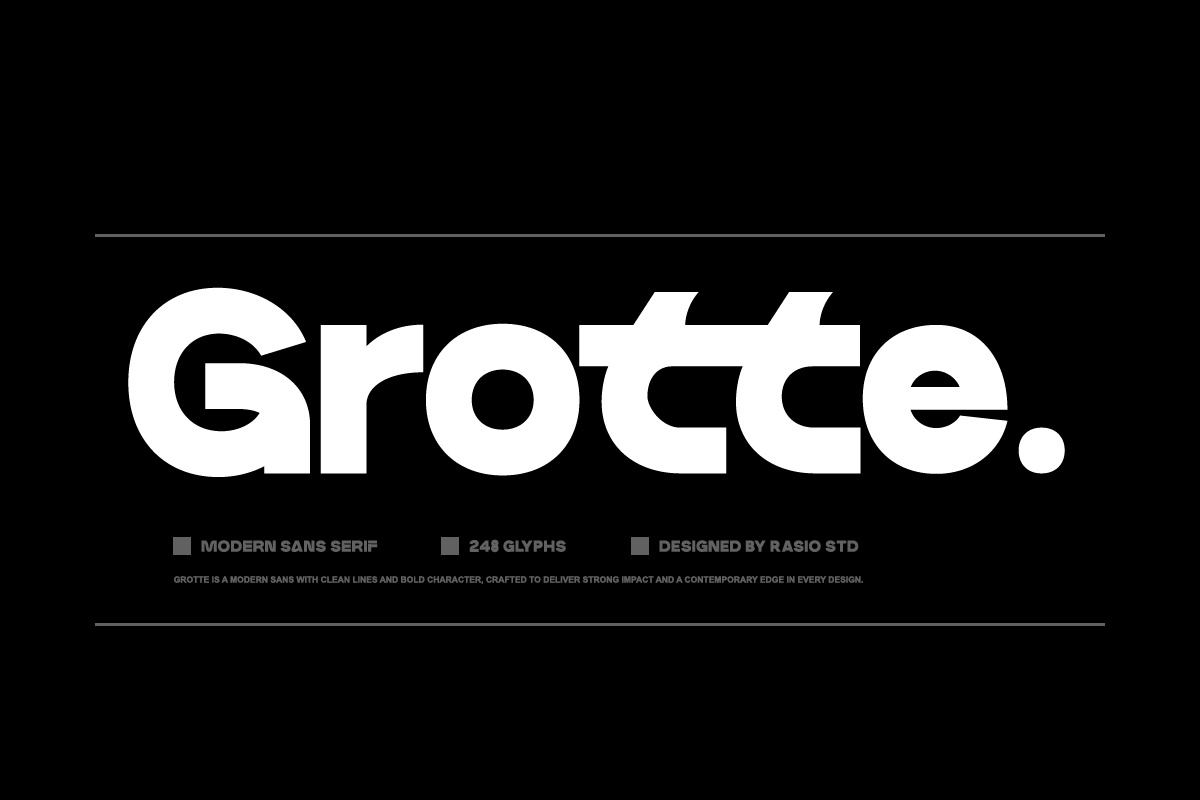
Grotte Modern Sans Serif Font
Grotte is a striking modern geometric sans serif typeface crafted to deliver strong visual impact and contemporary edge across diverse design applications. With clean lines, bold proportions, and distinctive alternate letterforms, Grotte balances readability with personality perfect for designers seeking a modern yet expressive sans serif. This font includes a full character set with uppercase and lowercase letters, numerals, punctuation, stylistic alternates, and ligatures that elevate its creative possibilities.
Relevance and Use Cases is perfect for designers and brands looking to create bold, contemporary visuals with a distinctive typographic voice. It excels in branding and identity systems, poster and editorial layouts, product packaging and labels, website and app interfaces, motion graphics headlines, advertising campaigns, and modern print or digital media.
- Bold modern grotesk sans serif with clean geometric construction
- Strong letterforms designed for impactful headlines and branding
- Minimal stroke contrast for a solid and contemporary appearance
- Balanced proportions that maintain clarity across large display sizes
- Carefully crafted spacing for crisp readability in modern layouts
- Brand identity systems that require bold and modern typography
- UI/UX design for tech products, digital platforms, and mobile apps
- Advertising campaigns, posters, and promotional graphics
- Product packaging and label design with strong visual presence
- Social media graphics and marketing materials with contemporary impact
Bring bold modern energy to your design with Grotte